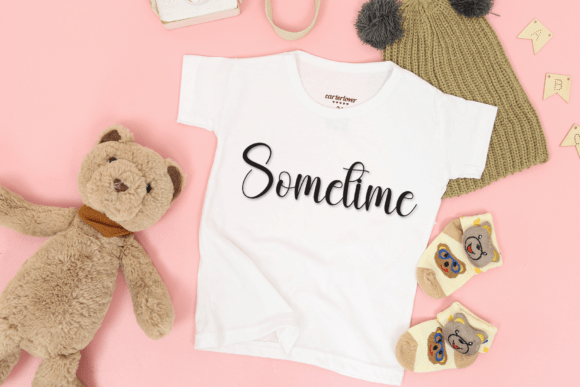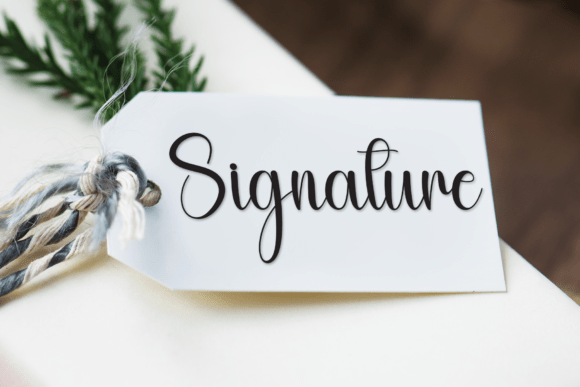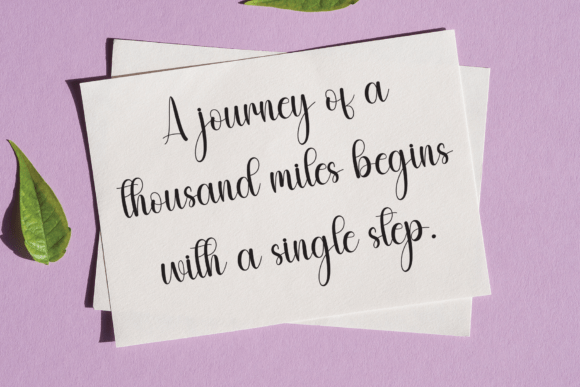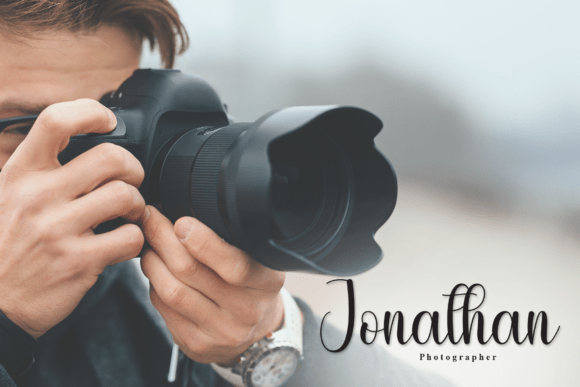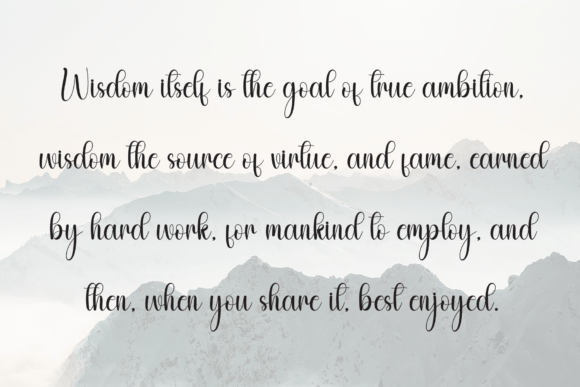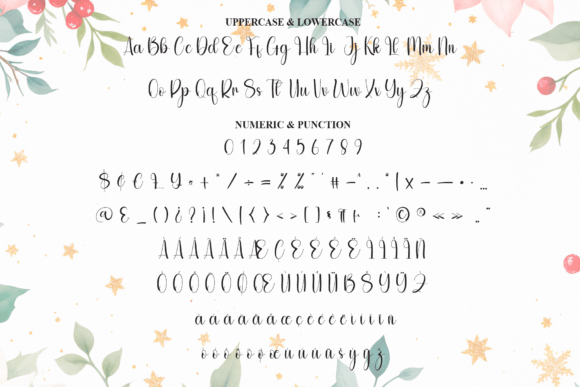
Unlocking the Magic of the Season with Christmas Wildflower Font
As the holiday season approaches, designers often find themselves scrambling for the perfect font to capture the essence of the occasion. It’s that moment when you’re browsing through font libraries, searching for the perfect combination of elegance and playfulness. You stumble upon a font that makes your heart skip a beat – a font that embodies the spirit of the season. For many designers, that font is Christmas Wildflower Font.
Christmas Wildflower Font is a stunning script font that brings together the beauty of hand-drawn calligraphy and modern charm. Its fluid curves and carefully crafted letterforms make it perfect for adding a touch of sophistication to any design. Whether you’re creating logos, invitations, or social media graphics, this font is sure to deliver both versatility and visual appeal.
For designers, the Christmas Wildflower Font is a valuable asset in their creative arsenal. Its natural flow and polished details make it easy to work with, while its elegant style ensures that it adds a refined touch to any design. Whether you’re working on a holiday project or a year-round campaign, this font is sure to impress.
Christmas Wildflower Font Key Features
- Font Family: Christmas Wildflower Font is a unique, hand-drawn font designed specifically for the holiday season.
- Unique Characteristics: Features intricate, hand-drawn designs, and festive elements such as holly leaves, berries, and snowflakes, adding a touch of whimsy to holiday designs.
Designer Review: Christmas Wildflower Font
At first glance, the Christmas Wildflower Font seems like a charming addition to any holiday design project. ✨ The font’s playful, whimsical style is reminiscent of hand-drawn illustrations, making it perfect for creating a warm and inviting atmosphere. ✨ The font’s flexibility allows it to be used for a wide range of applications, from social media graphics to printed materials.
However, there are a few limitations to consider: ⚠️ The font’s bold style can be overwhelming in certain contexts, making it difficult to read in smaller sizes. ⚠️ Additionally, the font’s irregularities can make it challenging to pair with other fonts, potentially limiting design flexibility. ⚠️ Finally, the font’s lack of ligatures and kerning may require additional manual adjustments to achieve optimal results.
- ✨ Playful, whimsical style that adds a touch of personality to designs
- ✨ Flexible and versatile, suitable for various design applications
- ⚠️ Bold style can be overwhelming in certain contexts
- ⚠️ Irregularities can make it difficult to pair with other fonts
- ⚠️ Lack of ligatures and kerning may require manual adjustments
In conclusion, the Christmas Wildflower Font is a great choice for designers looking to add a touch of holiday magic to their projects. While it may have some limitations, its unique style and flexibility make it a valuable asset in the right context.
Use the Christmas Wildflower Font for festive and whimsical designs, such as holiday cards, invitations, and gift tags.
Combine the font with other festive elements, such as holly leaves, snowflakes, and Christmas trees, to create a cohesive and holiday-themed design.
Q: Does Christmas Wildflower support Unicode characters?
Yes, Christmas Wildflower supports a wide range of Unicode characters, including Latin, Cyrillic, and Greek scripts. This ensures that you can use the font for designs that require international characters or languages. However, please note that some characters may not be supported in older versions of software or operating systems.